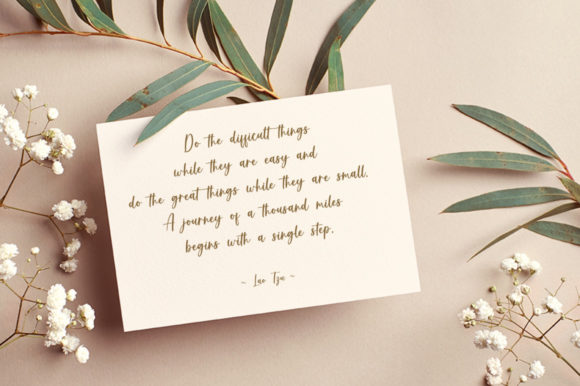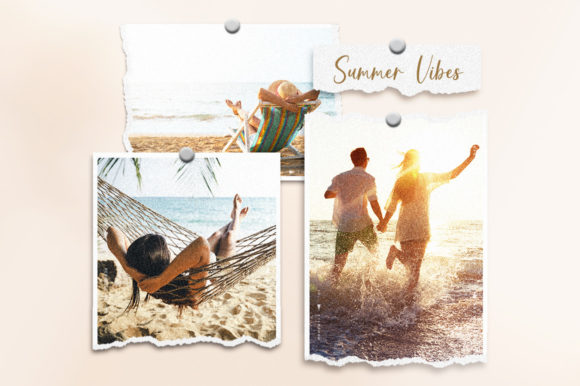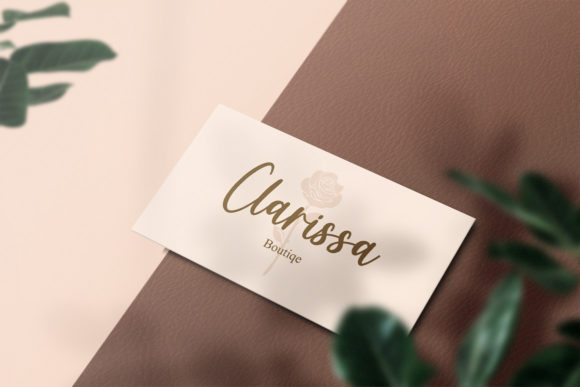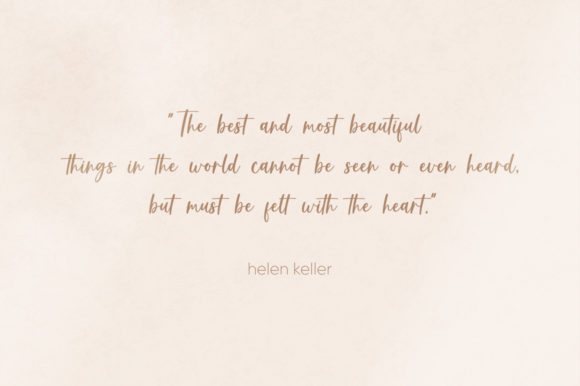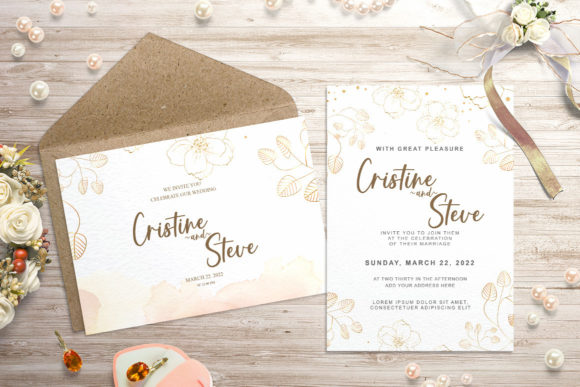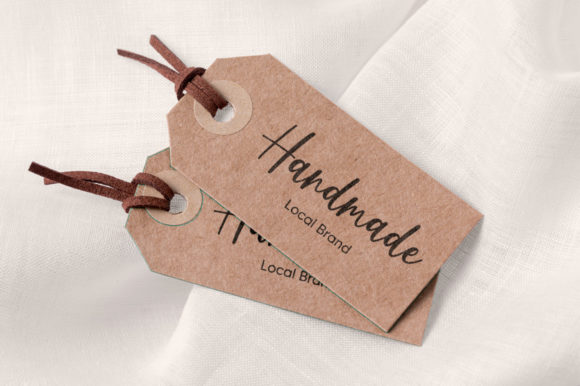
Amanda Font: Elevate Your Designs with Elegance and Sophistication
In the world of typography, fonts play a crucial role in conveying the tone and personality of a design. For those seeking a beautiful and refreshing look, Amanda Font is an excellent choice. This lovely and delicate script font exudes elegance and class, making it perfect for designers and crafters looking to add a touch of sophistication to their work.
The Characteristics of Amanda Font
Amanda Font is a meticulously crafted script font that boasts a range of characteristics that set it apart from other fonts. Its delicate strokes and elegant curves create a sense of refinement and luxury, making it ideal for designs that require a high level of sophistication. The font’s unique features include:
- Delicate strokes and elegant curves
- Refined and luxurious feel
- Perfect for designs that require sophistication and elegance
Who Can Benefit from Amanda Font?
Amanda Font is a versatile font that can be used by a range of designers and crafters, including:
- Graphic designers looking for a elegant font for their branding and advertising projects
- Wedding planners and stationery designers seeking a romantic and sophisticated font for their wedding invitations and stationery
- Crafters and DIY enthusiasts looking for a beautiful font for their handmade projects, such as card making and scrapbooking
- Web designers seeking a elegant font for their website or blog
The Benefits of Using Amanda Font
Using Amanda Font in your designs offers a range of benefits, including:
- Elegance and sophistication: Amanda Font adds a touch of elegance and sophistication to any design, making it perfect for high-end branding and advertising projects
- Versatility: The font’s versatility makes it suitable for a range of design applications, from wedding invitations to website headers
- Easy to read: Despite its delicate nature, Amanda Font is easy to read, making it perfect for body text and headlines
- Unique and distinctive: Amanda Font’s unique characteristics make it stand out from other fonts, ensuring your designs will be noticed
Tips for Using Amanda Font Effectively
To get the most out of Amanda Font, follow these tips:
- Use it sparingly: Amanda Font is a elegant font, so use it sparingly to avoid overwhelming your design
- Pair it with a sans-serif font: Pairing Amanda Font with a sans-serif font creates a beautiful contrast and adds visual interest to your design
- Experiment with different sizes and colors: Experiment with different sizes and colors to find the perfect combination for your design
Amanda Font is a beautiful and elegant script font that can elevate your designs to new heights. Its delicate strokes and elegant curves create a sense of refinement and luxury, making it perfect for designers and crafters looking to add a touch of sophistication to their work. With its versatility, ease of use, and unique characteristics, Amanda Font is an excellent choice for anyone seeking a elegant and refreshing look for their designs.
In conclusion, Amanda Font is a lovely and delicate script font that exudes elegance and class. Its unique characteristics, versatility, and ease of use make it an excellent choice for designers and crafters looking to add a touch of sophistication to their work. So why not give Amanda Font a try and see how it can elevate your designs?